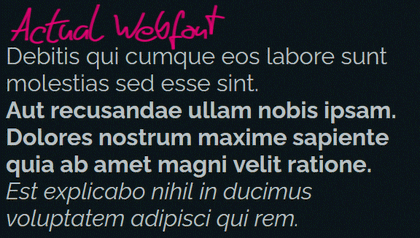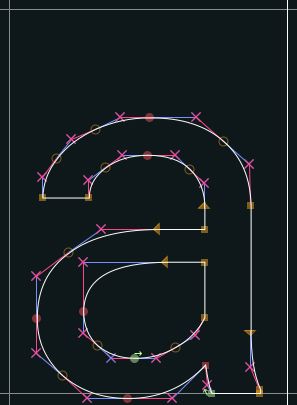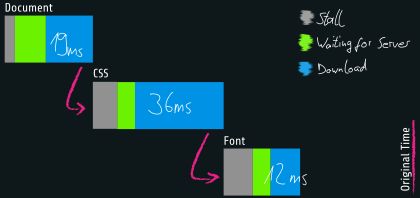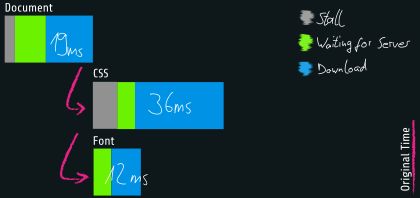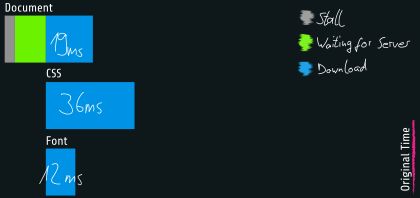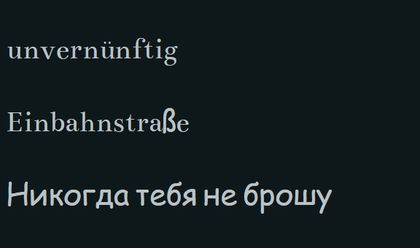
Inspired by Ben Halperns discussion about webfonts, I decided to take a deep dive into the subject. What are Webfonts, where did they come from and how do we load them as fast as possible?
TL;DR
- convert your font to woff/woff2
- split font files into character sets and load them with
unicode-range - preload your font or use HTTP2 server pushes
- use
font-display: fallback;oroptional; - Cache your fonts efficiently
What's a font?
Let's start at the beginning: What are fonts?
A font file is a collection of vector-based graphics. That means they're scalable, so you don't need a different set of graphics for different sizes. Those graphics get assigned to addresses, which represent specific glyphs. A glyph can be
- a letter (
A) - a number (
3) - a mathematical operator (
÷) - weird dingbats (
♆) - or whatever else you can find in the Unicode table.
Partly because font files would become bloated, partly because it's a huge amount of work, next to no font supports the full Unicode set. We mostly work with subsets and accept the constraints that come with that. If you're a non-English speaker and your language uses its own letters, you'll most certainly have been in the situation of having found a nice font, but unable to use it, because there's no ß inside. I'll cover later on how the browser handles those cases.
Fonts can also transform their characters on a contextual basis with ligatures. A common example would be fi, with the arch of the f merging with the i's dot and the x-line serifs becoming one.
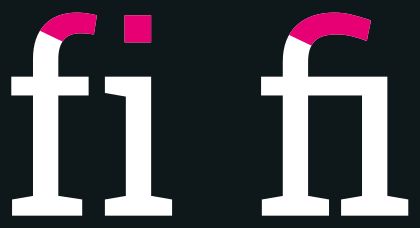
The font recognizes defined character strings and replaces them with a special graphic. That mechanism can be taken to an extreme for creative effects.
A font file typically includes only one style (as in bold, italic, etc). A font family that covers all styles of a font consists of multiple font files. This becomes very important when bringing fonts into the web because each style means another request.
Formats
Back in the days of the Browser Wars, you had to have a plethora of file formats to get your webfont running consistently. There was EOT for Internet Explorers, SVG for older iOS devices, and TTF and OTF for more modern browsers like Chrome and Firefox.
Things have become clearer since then. TTF and OTF were pioneered by Microsoft, who also introduced the @font-face rules to begin with. Both are flavors of OpenType, with TTF being focused on TrueType and OTF being focused on PostScript. There's a comprehensive history in the Wikipedia article. OpenType eventually got a nice, browser-supported compression and evolved into woff (which became woff2 with an even better compression).
Browser support for woff and woff2 is very good. You can pretty much just stick to them and forget about the others unless you have to support some niche devices. Fonts that are only available as TTF/OTF can easily be converted to woff2.
Still, what's even better than loading a super optimized font over the network is checking if the user already has it on their system. When using very popular fonts like Open Sans, Roboto or Fira Code the chance of that is quite high. Let's put the local() option at the top of the list.
Loading a webfont
A naïve implementation of a webfont would look like this:
That works. The body text is shown in the specified font. Mission accomplished, good job everyone. Hold up! There's still a lot of potential here. Here's what that would look like as a simplified waterfall diagram with totally made up numbers.
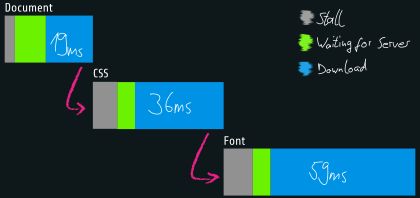
You might notice a "flash" or layout change when loading the site. There's also some heavy data usage or a bit of delay until the page has finished rendering. You can speed things up. You can cut down on both the download's size and efficiency. Let's look into that!
Load only what you need
Before I talk about cutting down on file sizes, I'll talk about what you don't want to throw overboard.
Font Stacks
Webfonts are progressive enhancements. A browser will always display text, whether you specified a valid font or not. It will just fall back to the system font if all else fails. The font-family property gives us the option to specify more than one font: That's called a font stack and it's read from left to right.
If the webfont Roboto fails to load or parse for some reason, the browser falls back to Arial. If that's not found locally, it tries Helvetica Neue, then Helvetica, and finally uses whatever sans-serif font is specified in the browsers settings.
Google Fonts still raises some privacy concerns and gets blocked way faster by adblockers than self-hosted solutions.